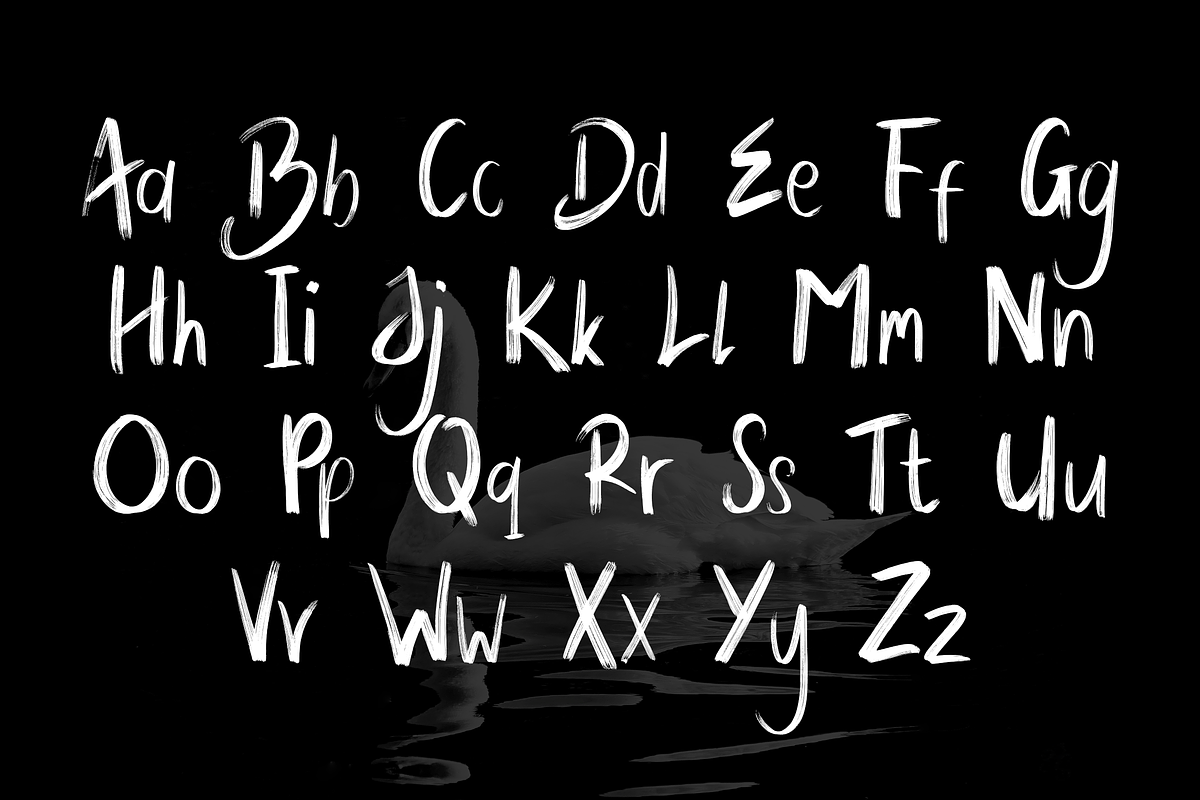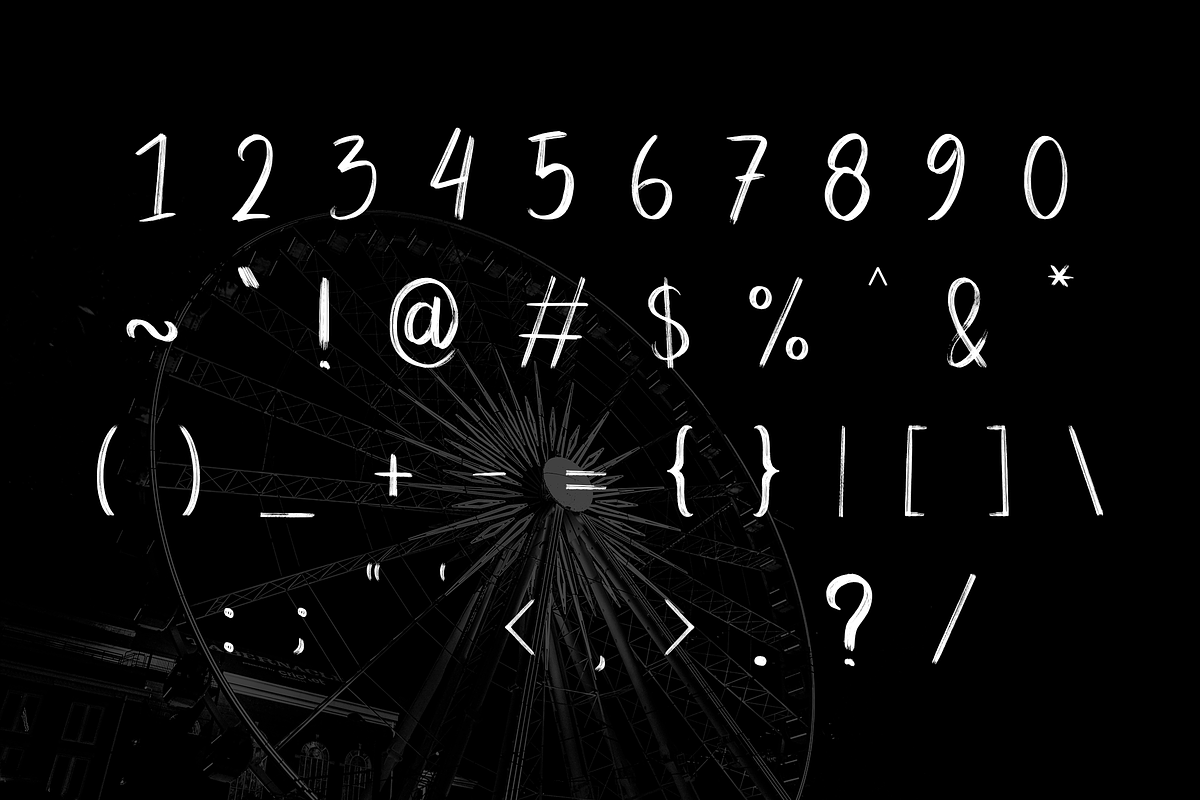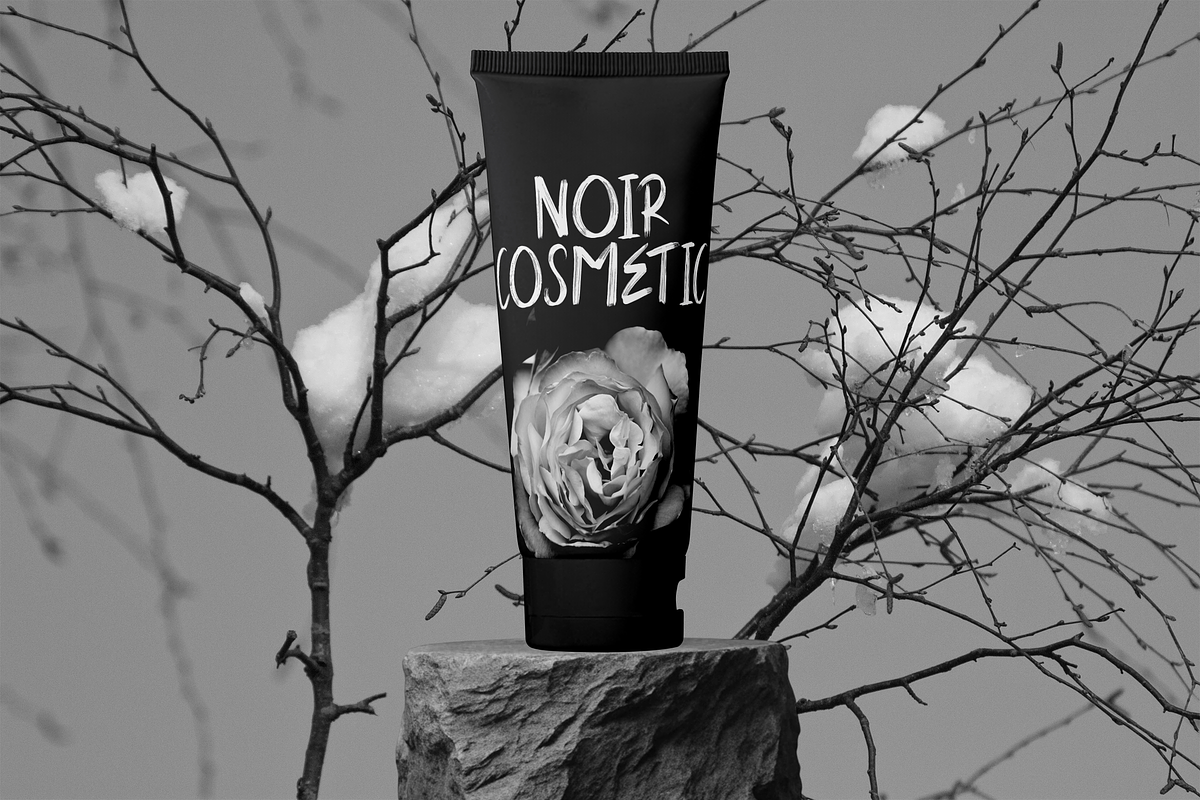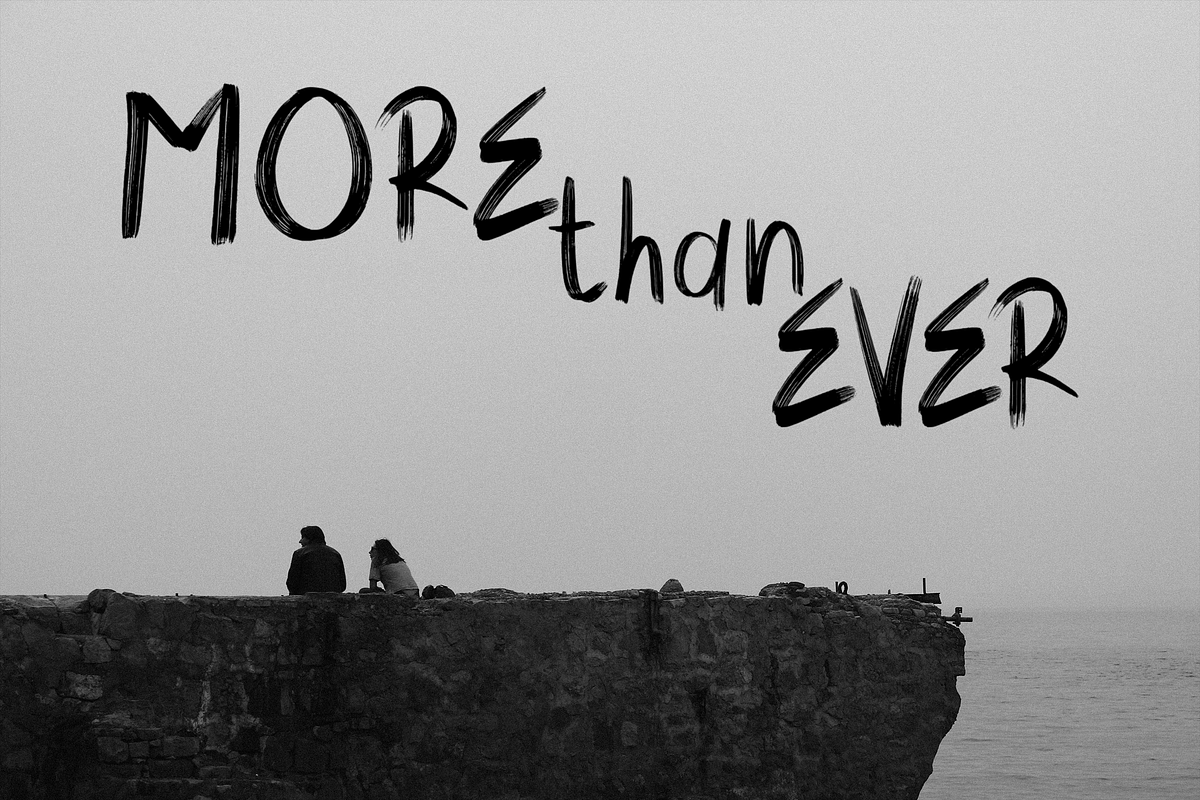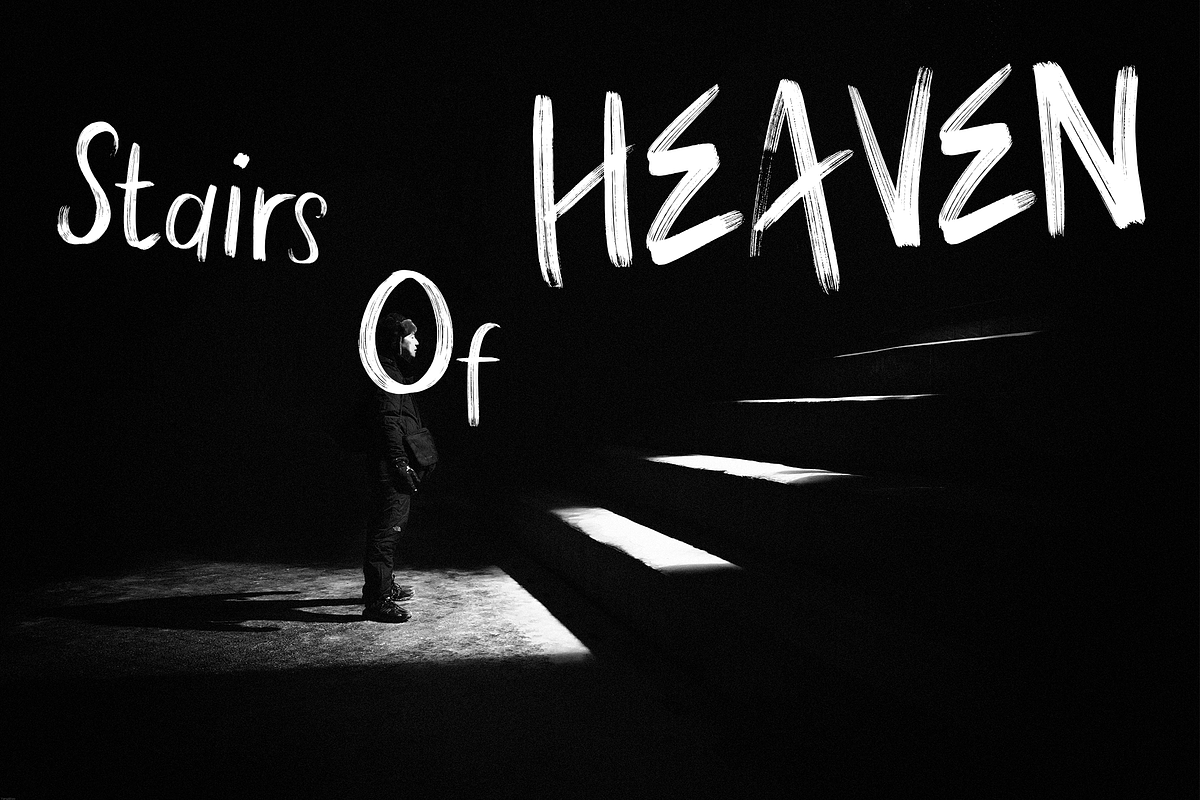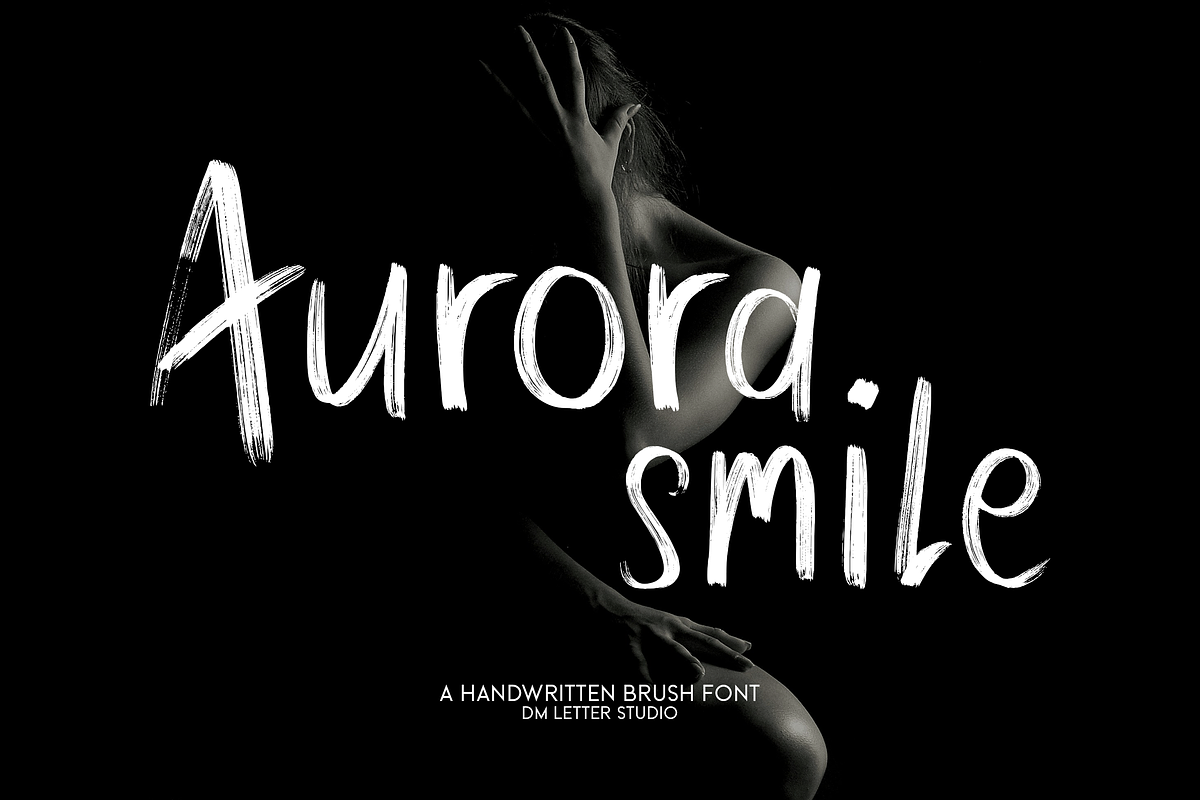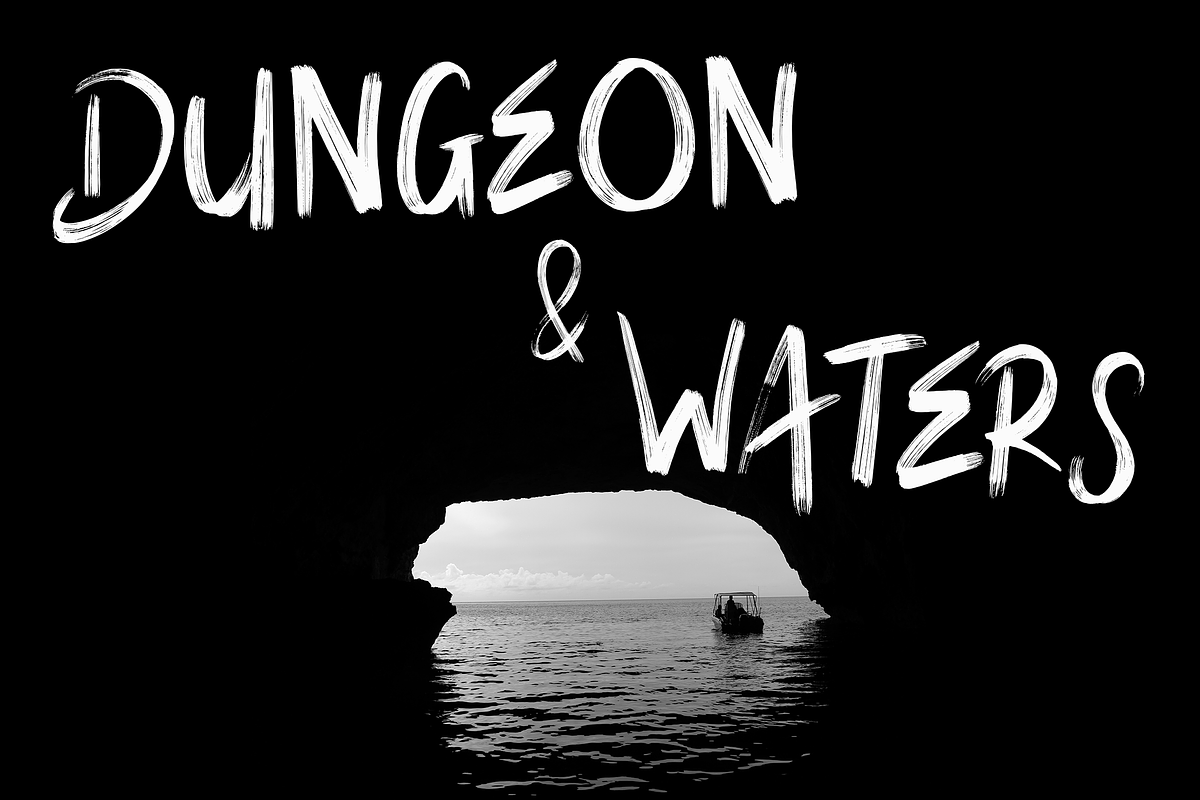
Aurora Smile
Meet Aurora Smile, the Handwritten Brush Font
Aurora Smile is a handwritten brush font with a bright, upbeat flow that feels friendly and alive. The strokes look hand-painted with natural pressure changes, so your words feel expressive without losing clarity. Because the shapes stay open and balanced, Aurora Smile remains readable at medium and large sizes while still keeping that brush energy. Use it for cheerful logos, social posts, quote graphics, packaging, stickers, kids brands, café menus, and event promos. As a result, your designs instantly feel happier and more human.
Fast layouts with the Aurora Smile font
Start with a short headline in Aurora Smile and keep it punchy. After that, add details in a clean supporting font for dates, pricing, or small text. Because brush textures feel best with space, avoid crowding and let the letters breathe. In addition, try stacking two or three short words to create a strong focal point. Finally, lock in palette pairs like sunshine & cream, coral & white, teal & ivory, or charcoal & blush to repeat across your product line.
Creative uses and quick wins
Quote posts, reels covers, and story templates
Stickers, labels, and packaging seals
Kids party invites, classroom posters, and café boards
Merch slogans, tote bags, and gift tags
Uppercase, lowercase, numbers, punctuation
Brush-style texture for expressive display type
Curves tuned for print, cutting, and high-res exports
Design tips for Aurora Smile
Keep phrases short so the brush energy stays strong. Also, increase line spacing slightly when you stack words. For extra pop, add a subtle shadow or a light grain texture behind the text. If you’re cutting vinyl, go larger and avoid tiny details. Finally, export at 300 DPI for print and at 2× size for web so edges stay smooth everywhere.